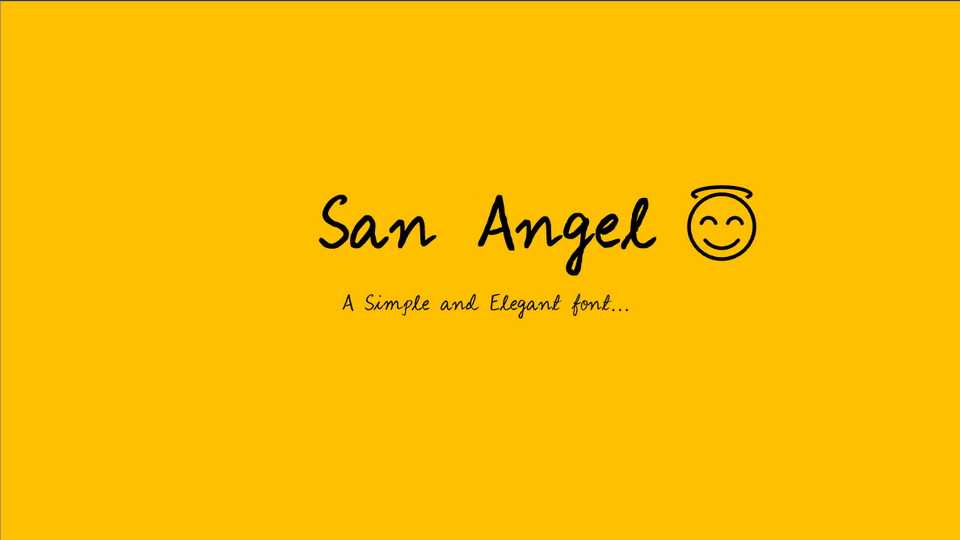
Download San Angel font, a captivating handwritten typeface exuding elegance and charm. Inspired by the graceful strokes of calligraphy, it carries a timeless allure, reminiscent of handwritten letters.